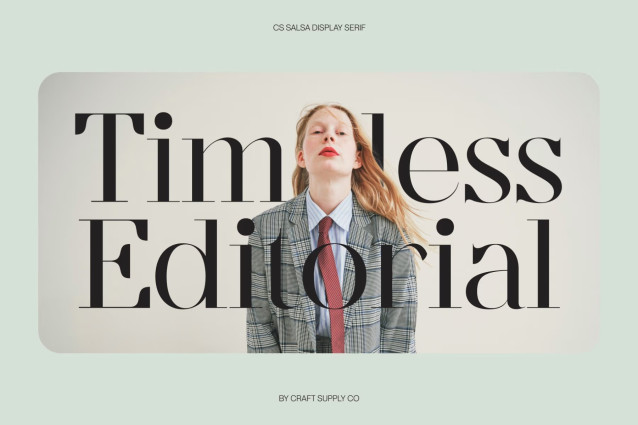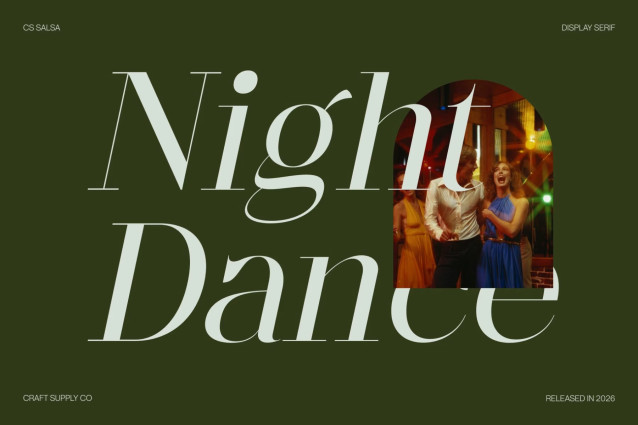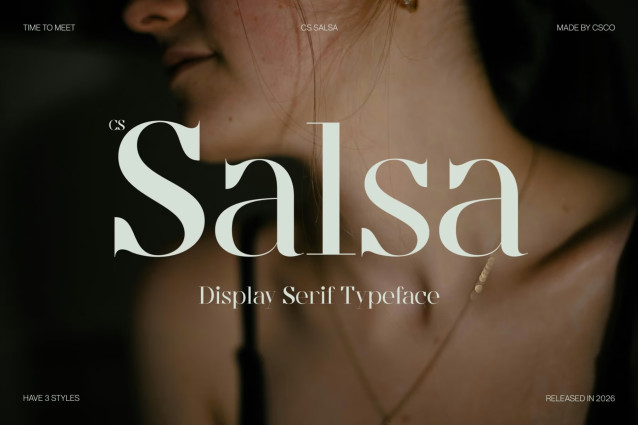
CS Salsa – Elegant Serif Font
CS Salsa – Elegant Serif with High-Contrast Quirky Charm
Elegant Serif with Refined Curves
This is an elegant serif font designed with refined curves that create a graceful and sophisticated presence. Its carefully shaped letterforms balance classic serif foundations with modern refinement, resulting in a typeface that feels polished, stylish, and visually captivating. Every detail is crafted to deliver elegance with personality.
High Contrast with Expressive Character
The high-contrast strokes of this font bring dramatic visual rhythm and depth to the typography. This contrast enhances readability while adding a sense of luxury and sophistication. Subtle quirky details introduce a playful twist, giving the font a unique voice that feels fresh and memorable without losing its refined charm.
Luxury Feel with Modern Personality
This font blends timeless elegance with a contemporary attitude. Its refined structure communicates confidence and high-end appeal, while its expressive nuances keep the design lively and distinctive. The result is a font that feels fashionable, artistic, and full of character.